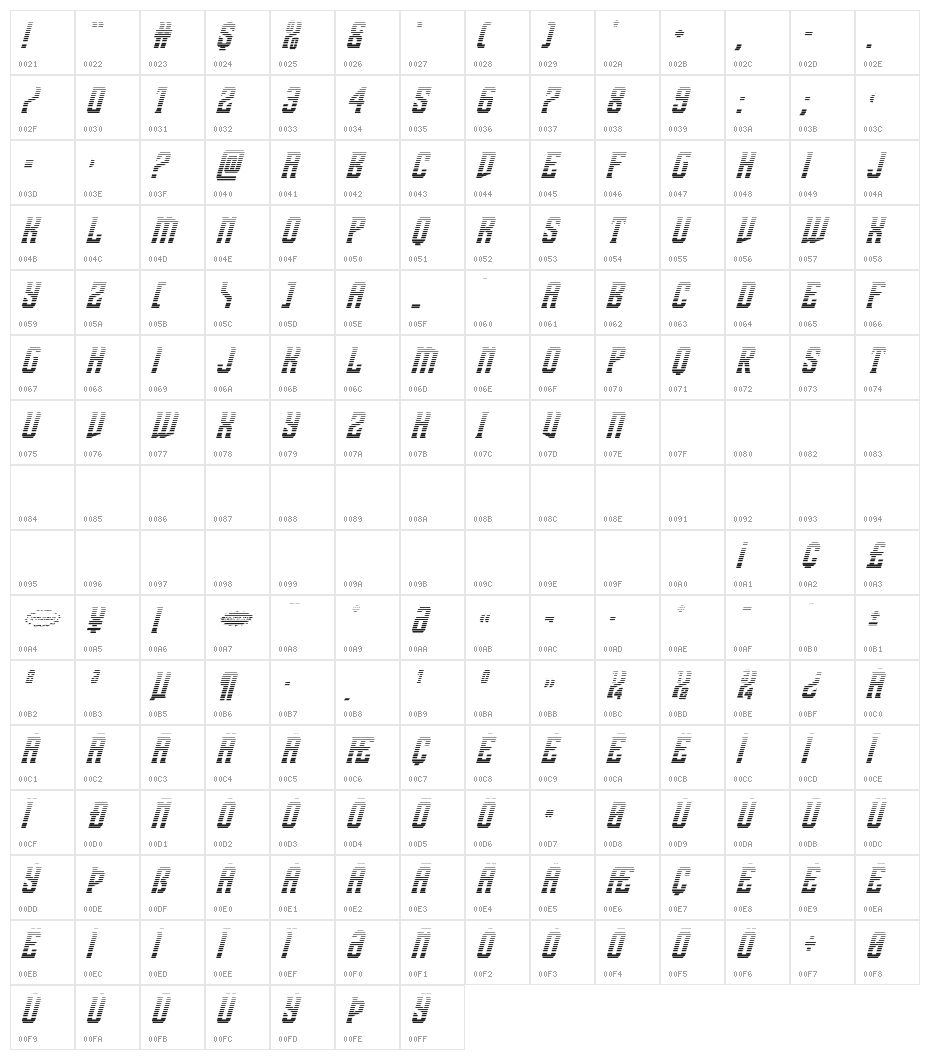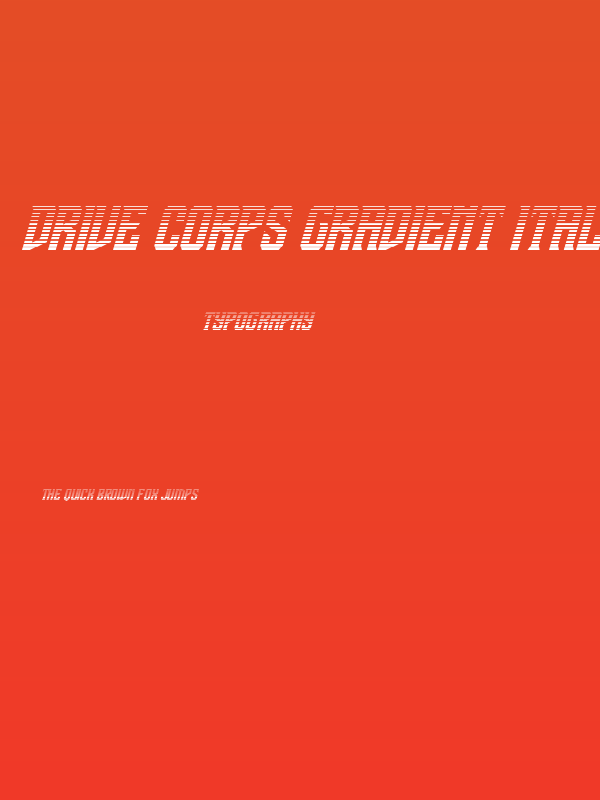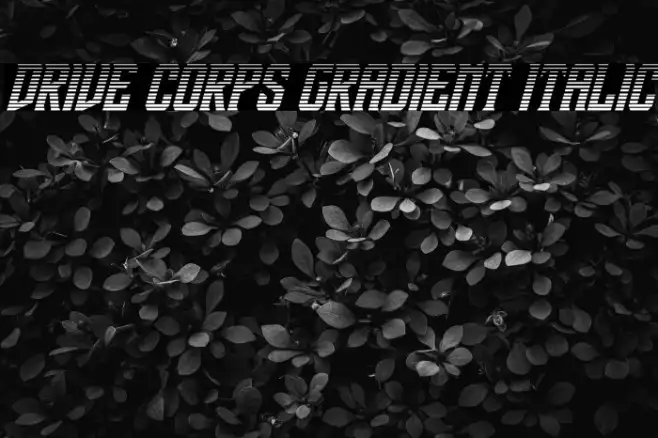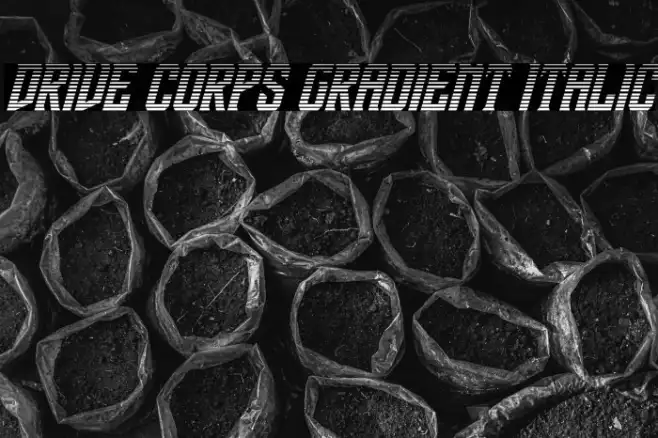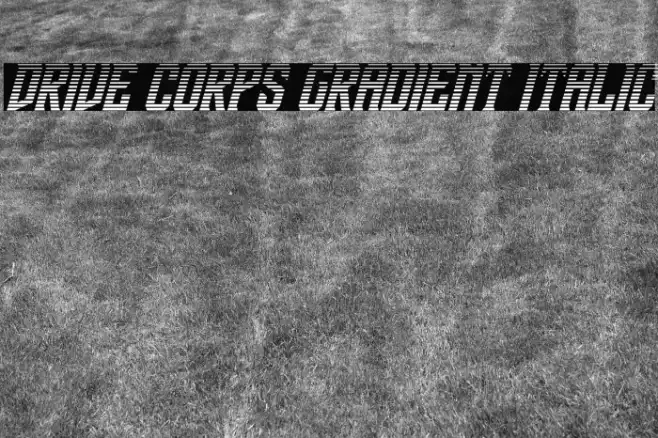
Drive Corps Gradient Italic Font
Drive Corps Gradient Italic Description
This font features a dynamic and futuristic design, characterized by its bold, italicized letters with a distinctive gradient effect. The characters are composed of horizontal lines that create a sense of motion and speed, making it ideal for projects that require a modern and energetic aesthetic. The uppercase and lowercase letters maintain a consistent style, with sharp angles and a streamlined appearance. The numbers and special characters are equally bold and maintain the same gradient line pattern, ensuring uniformity across all text elements.